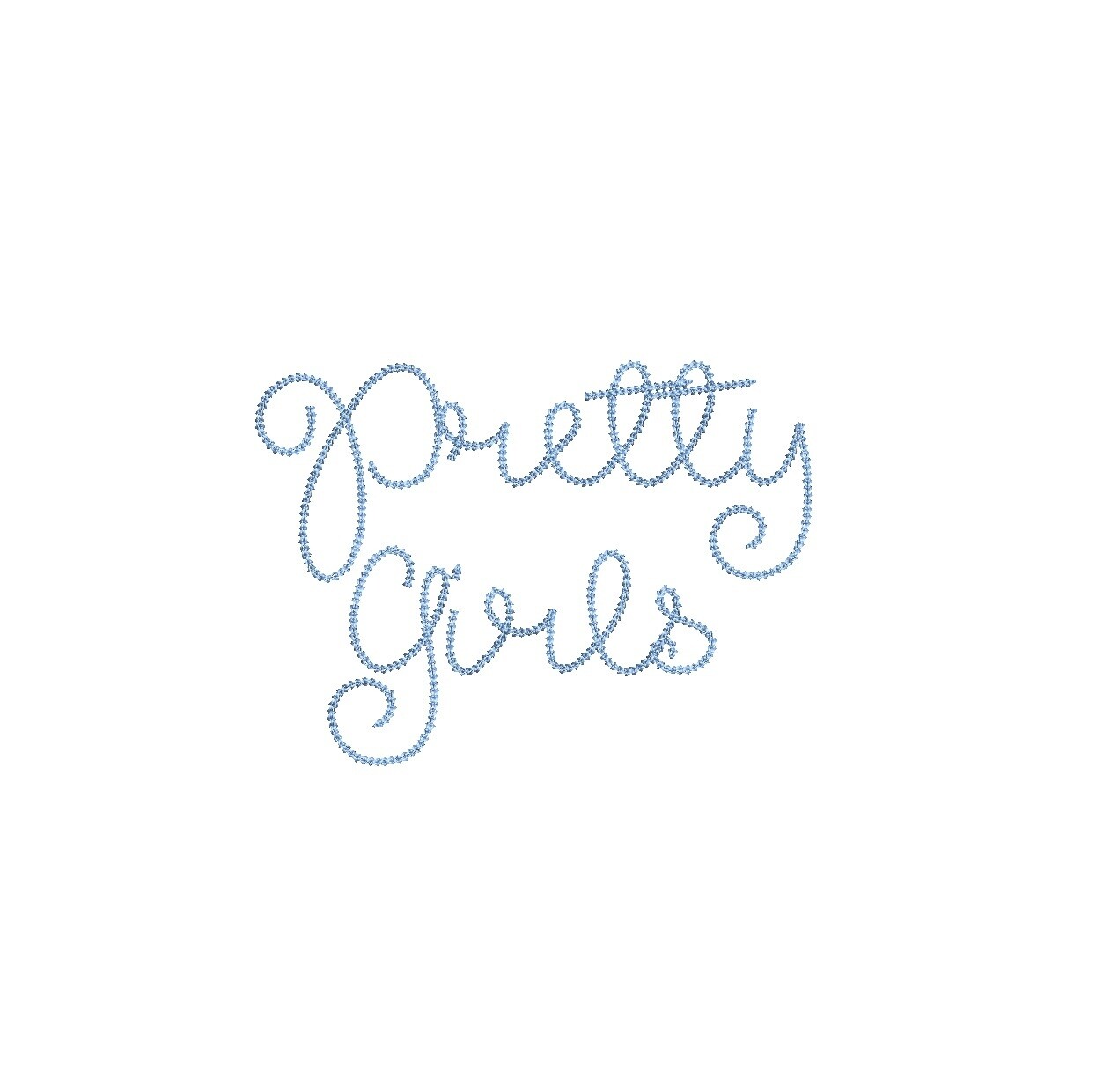
Unleash charm and elegance with the Pretty Girls Chain Stitch ESA font, a perfect choice to elevate your embroidery projects. This delightful font, fully compatible with Wilcom Studio e4.5.6 and Hatch 3 versions and up, adds a touch of sophistication to your designs. Crafted with precision, it ensures seamless stitch formation and flawless execution. Versatile and enchanting, this font is ideal for creating personalized gifts, fashion embellishments, and more. Upgrade your embroidery experience and let your creativity shine with the Pretty Girls Chain Stitch ESA font. Step into a world of beauty and grace.